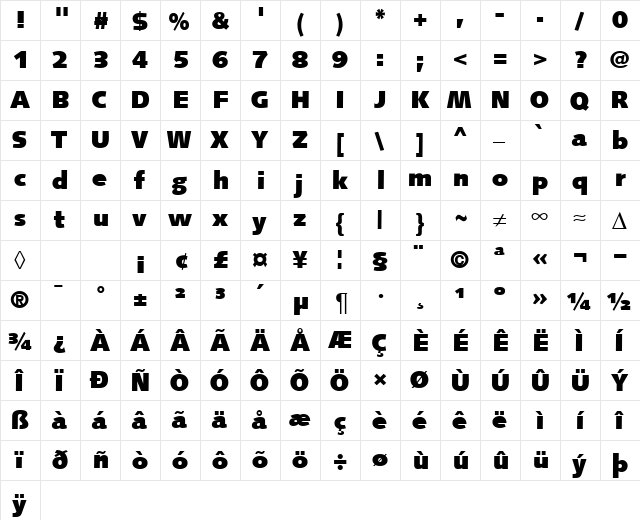
SyntaxTwoUltra Regular
SyntaxTwoUltra is a composed and adaptable typeface that performs quietly and consistently across a wide range of design contexts.